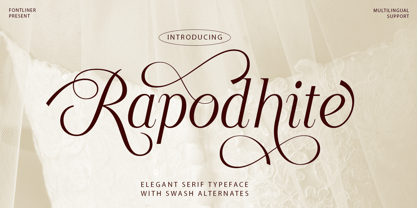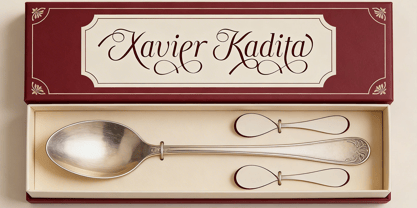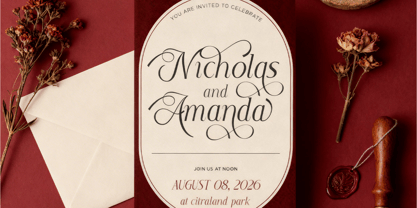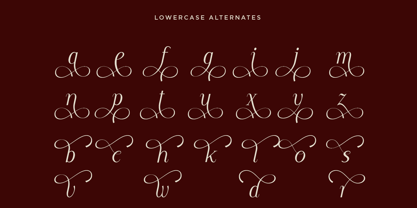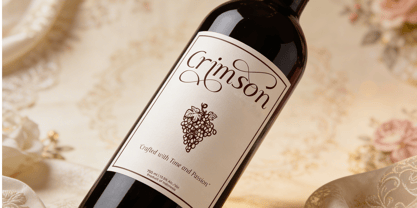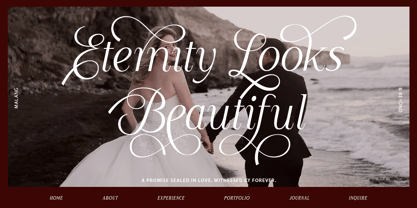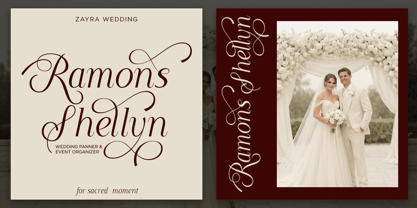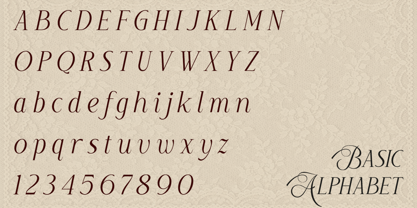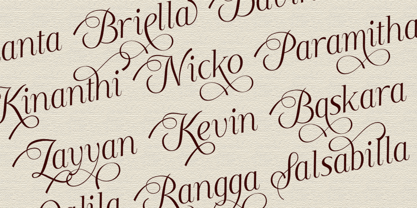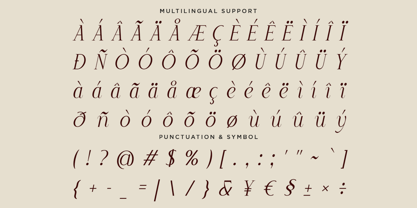
Rapodhite
by Font Liner
The Rapodhite Font Family was designed by Ghina Luthfiarieska and published by Font Liner. Rapodhite contains 1 styles. More about this family
Rapodhite is an elegant serif typeface designed to embody timeless beauty, graceful curves, and luxurious visual harmony. With its refined letterforms and expressive swash alternates, this font exudes a romantic and sophisticated character that elevates any design. Each stroke is meticulously crafted to balance classic charm with modern elegance, making Rapodhite an ideal choice for premium typography projects. It is perfect for wedding invitations, luxury branding, feminine logos, editorial layouts, beauty packaging, fashion campaigns, social media posts, stationery, certificates, book covers, and refined promotional materials. Rapodhite imparts a soft, graceful personality that enhances emotional connection and visual storytelling across both print and digital media. By blending classic serif traditions with decorative swash details, Rapodhite offers designers a versatile and expressive typographic solution. Whether utilized for elegant brand identities, romantic event designs, or high-end creative projects, this font delivers beauty, clarity, and refined sophistication in every composition. Thank You, Have a Good Day! FontLiner
Designers: Ghina Luthfiarieska
Foundry: Font Liner